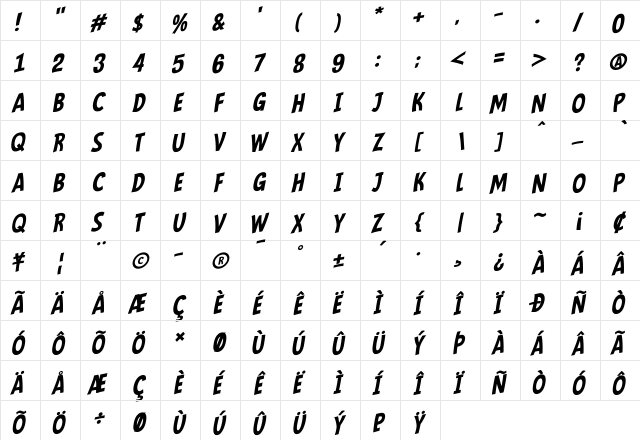
Mindflyers Comics Italic Regular
Design Context for Mindflyers Comics Italic Typeface
Mindflyers Comics Italic trades formality for fun, with bouncy, characterful letterforms that bring warmth and energy to any project. The slanted form adds forward momentum and visual energy.
Great for children's books, toy packaging, family event branding, and casual consumer-facing design.
Font Pairing: Pairs well with a rounded or humanist sans for body copy, maintaining the friendly tone without relying on Mindflyers Comics Italic to carry extended reading.
Pro Tip: Avoid using Mindflyers Comics Italic for long passages of text — it works best for headlines, labels, and short calls to action.